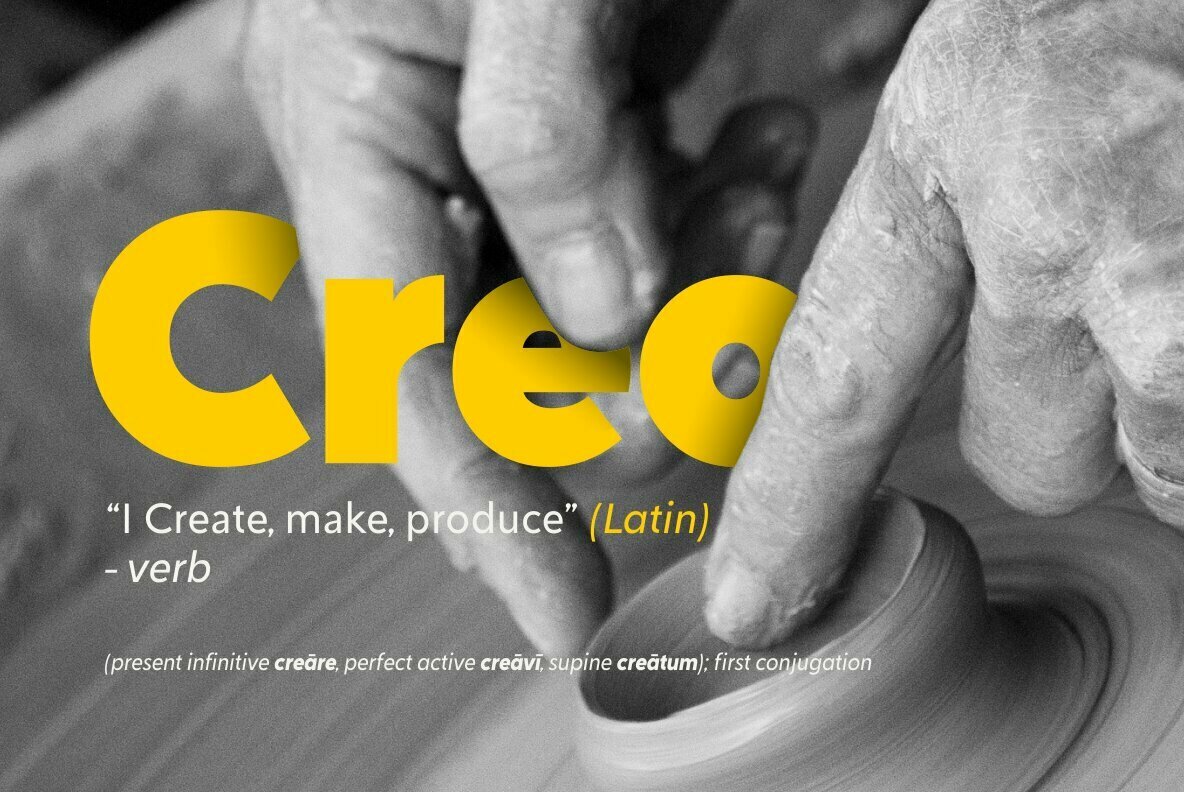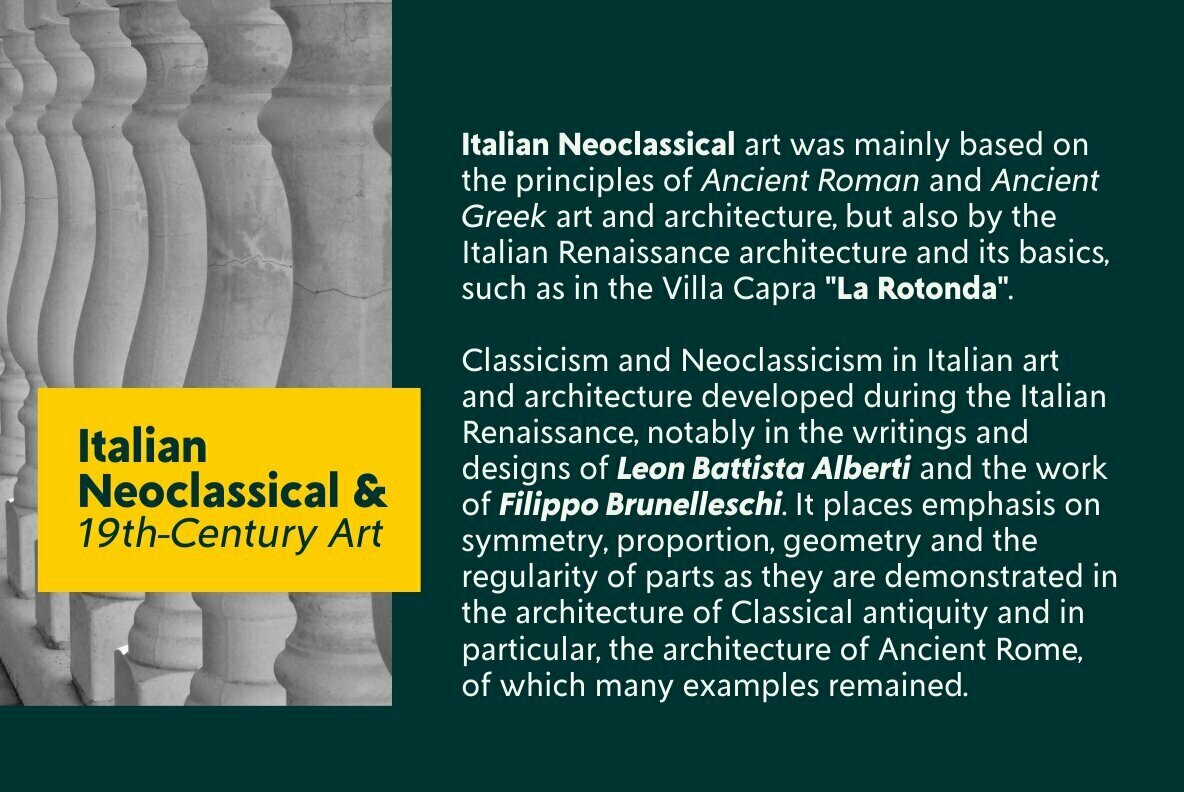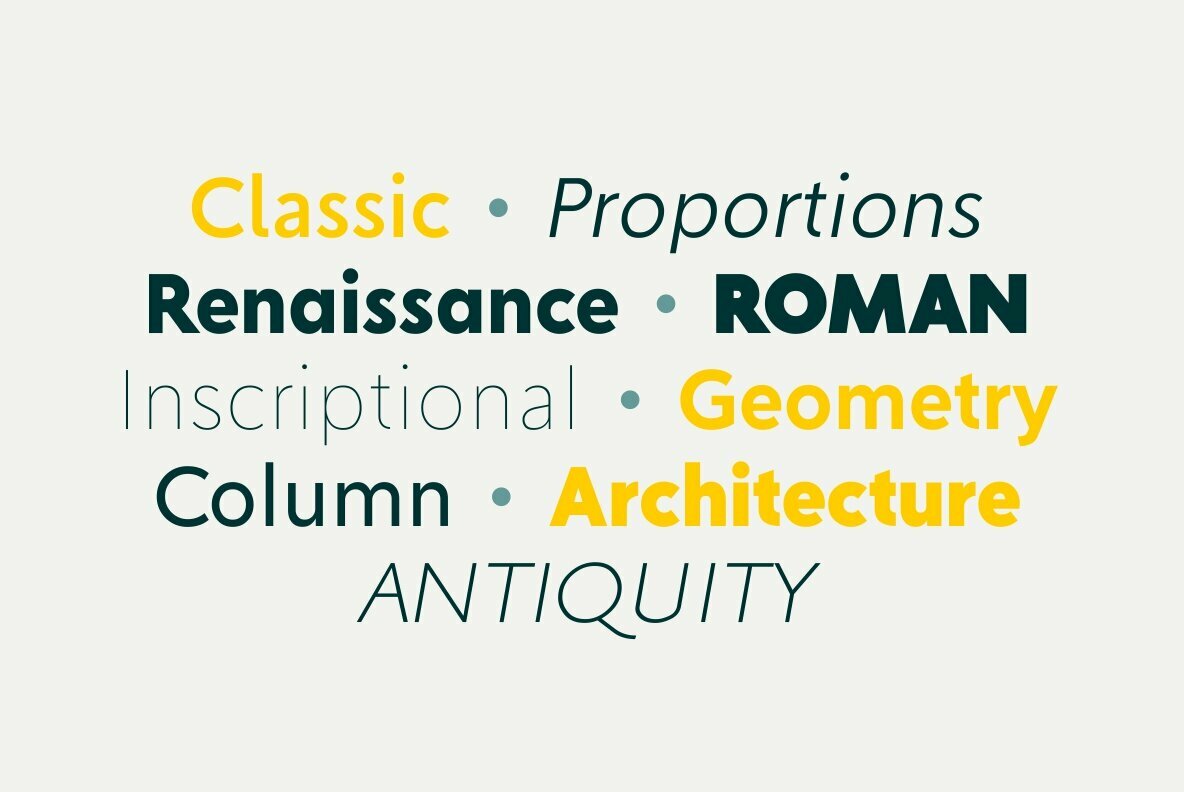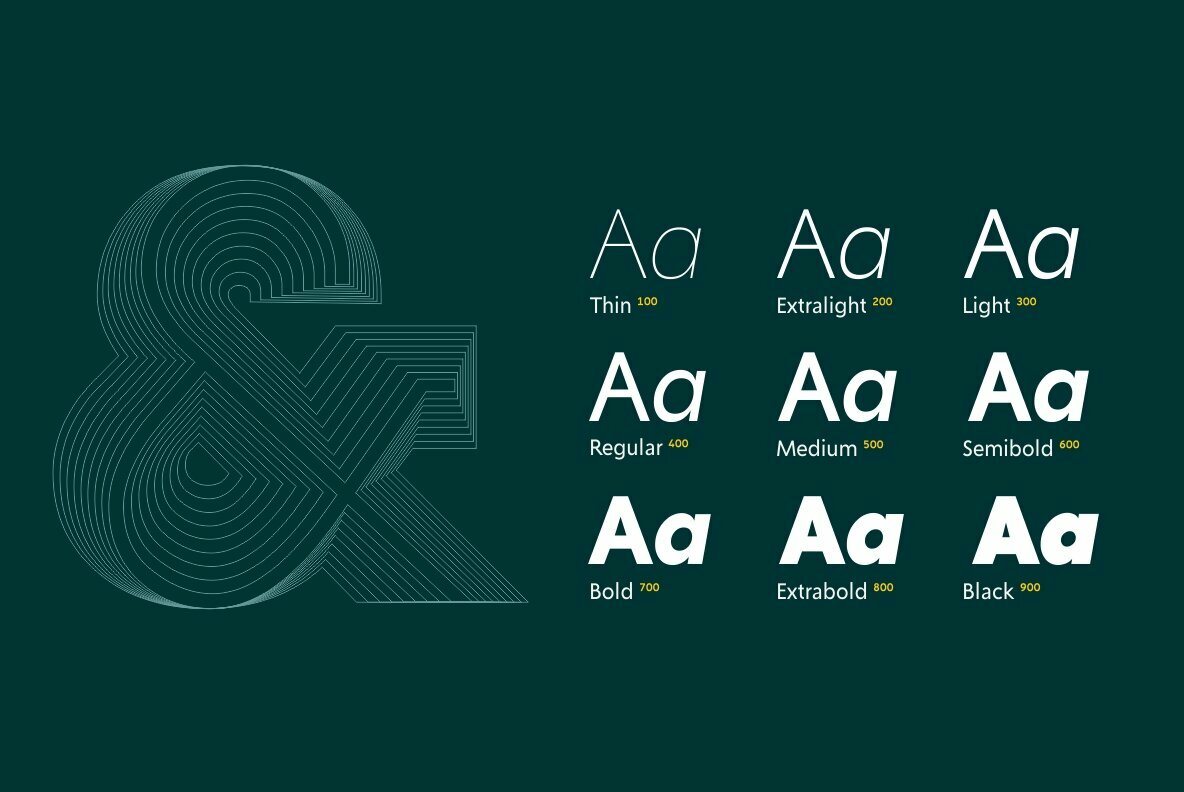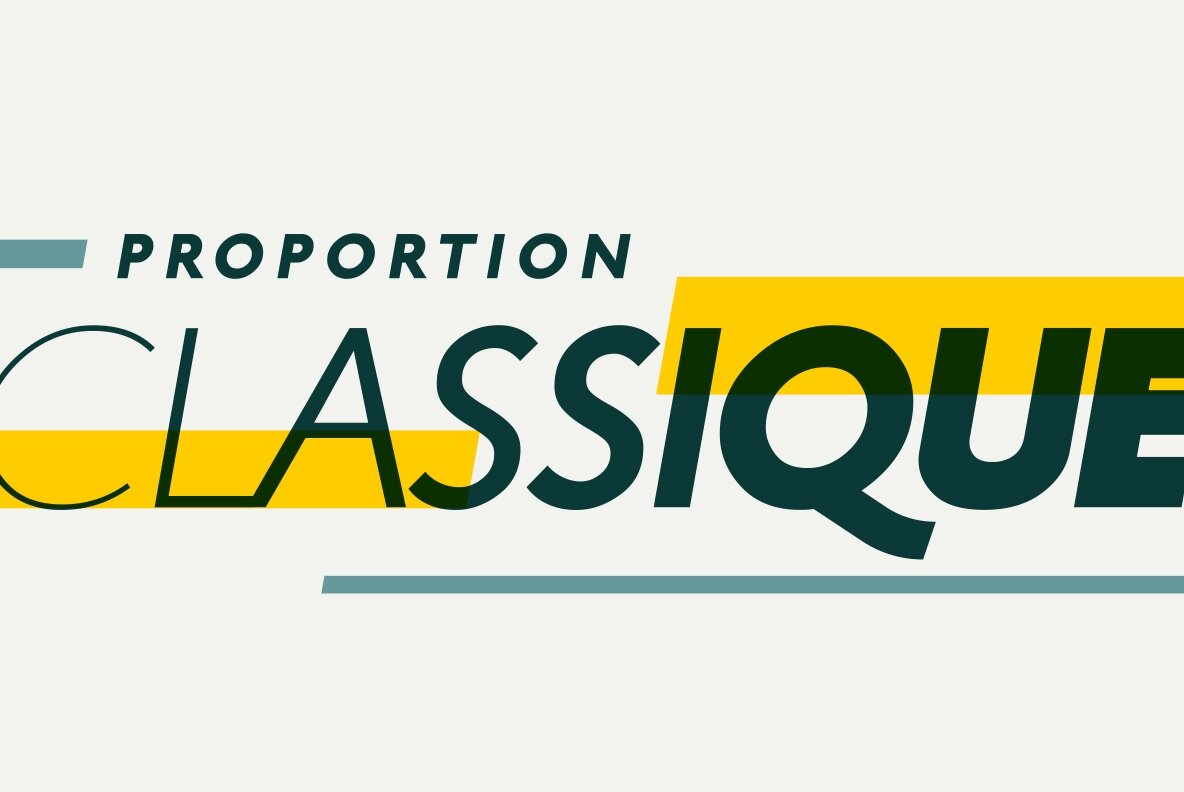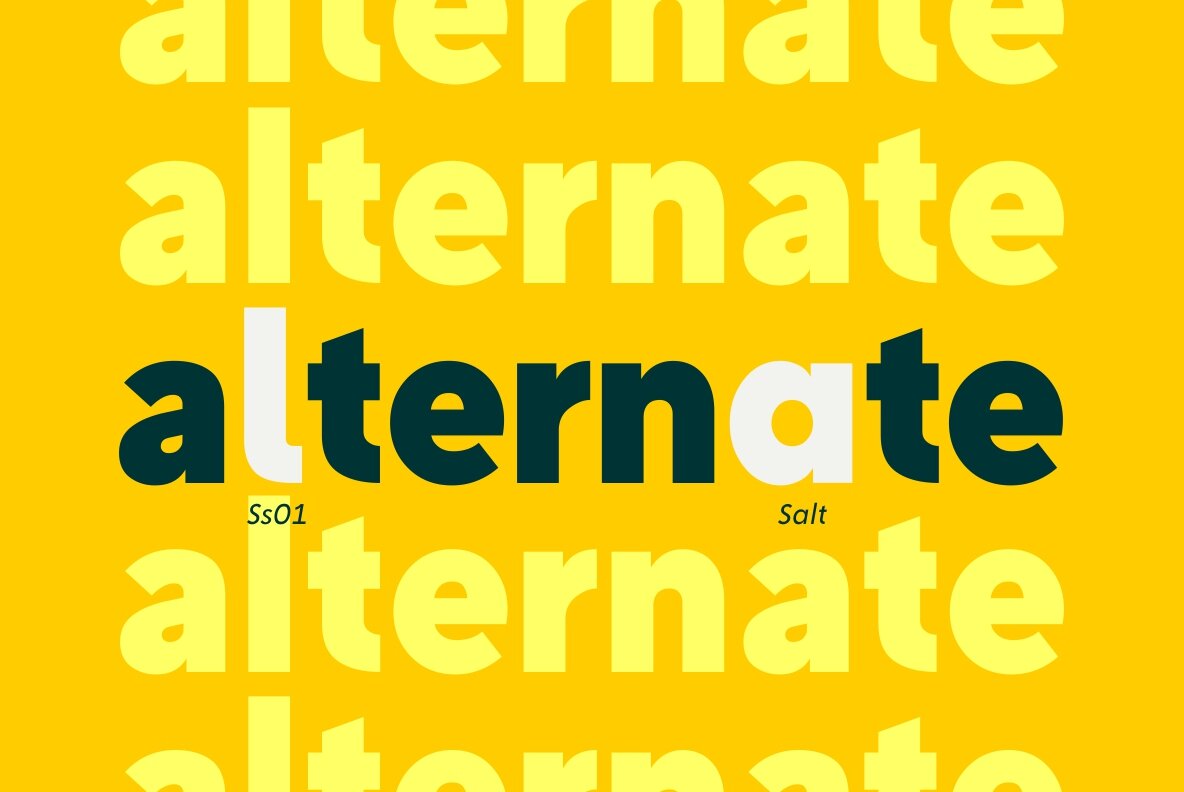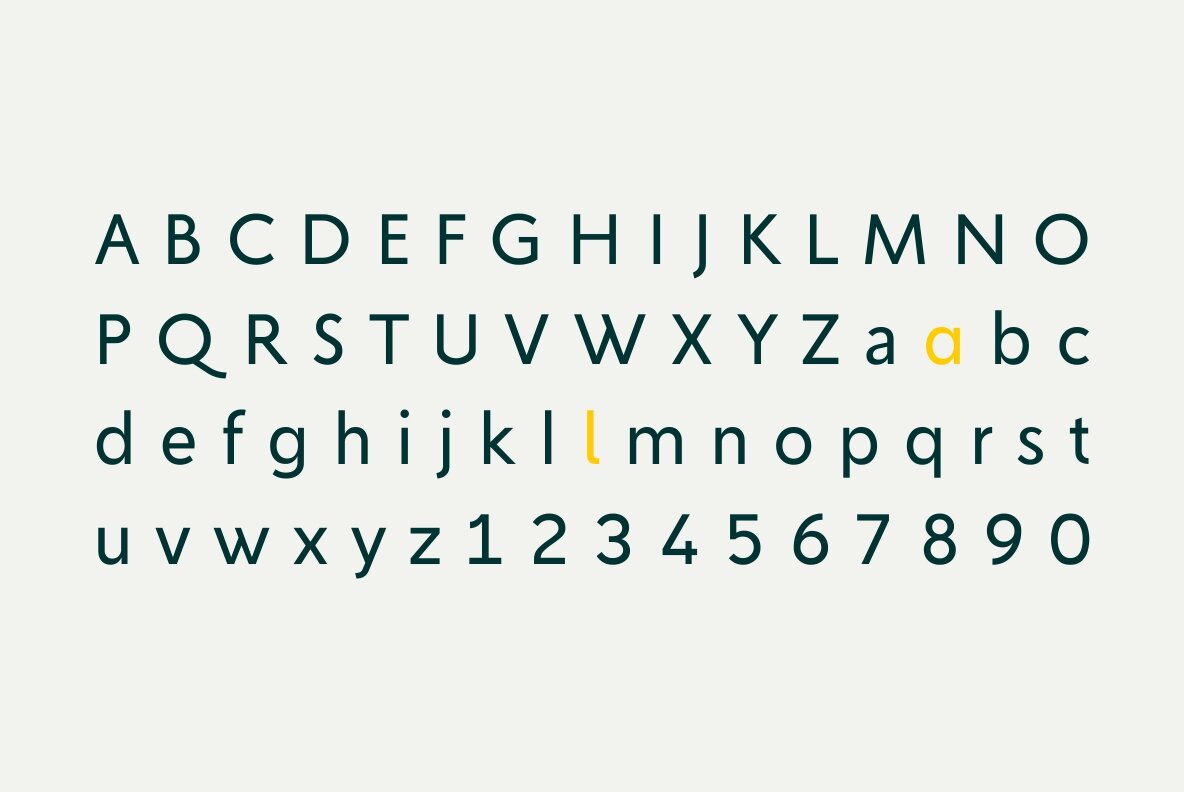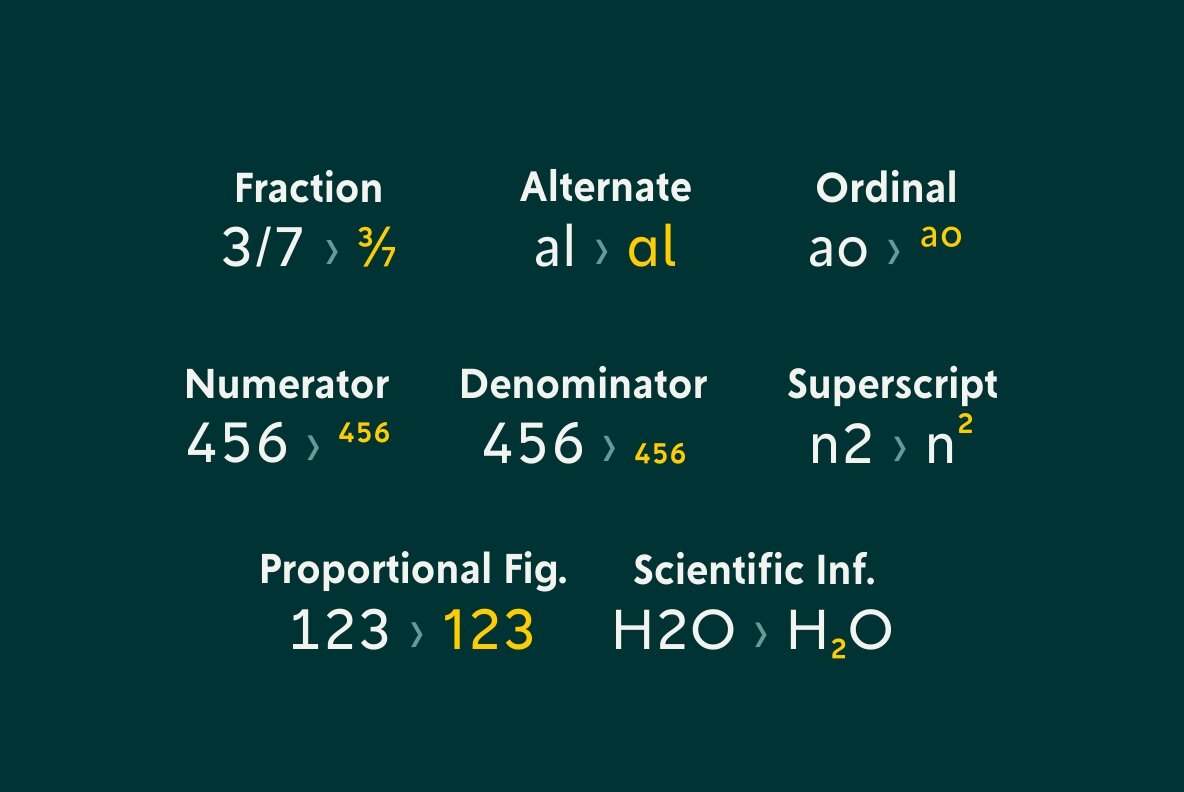
Creo Font
Creo is a low contrast, classic proportioned sans serif family, consisting of 18 fonts, 9 weights from thin to black; with uprights and italics. The word "Creo" was taken from the Latin language and means "I create, make, produce" (verb), which also stands for 'Classic Ratio'. The uppercase letters are highly influenced by Roman Inscriptional Capital letterform, and the lowercase letterform and their proportions were influenced by oldstyle serif typefaces.
Creo font family is equipped with some OpenType features, such as fractions, alternates, ordinals, numerator, denominator, superscript, scientific inferior, proportional lining, etc. The alternate style letters are separated for individual usage of alternate style. Each font file has 500+ glyphs which covers major Western and Eastern Europe languages.
Creo typeface with its classic letter proportions will give a different touch to your typographic work and will be a great choice for branding project, display poster, website, packaging, and a broad range of graphic design projects.